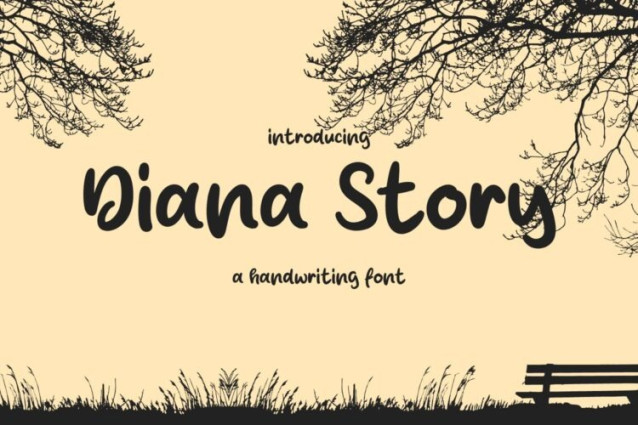
Diana Story Font
Diana Story Font is a simple and friendly handwritten font. Its natural and unique style makes it incredibly fitting to a large pool of designs. The only limit is your imagination!